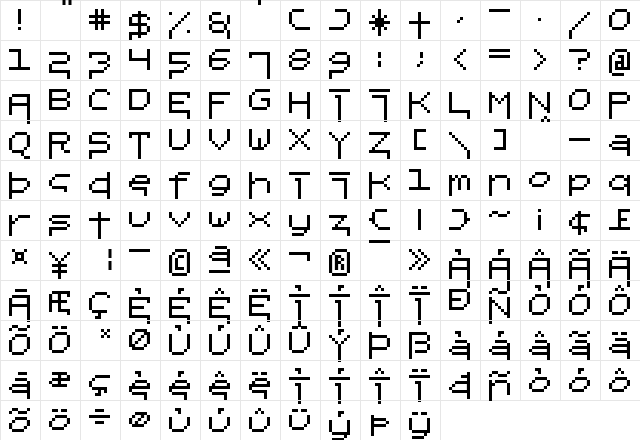
fixed_v05 Regular
Design Context for fixed_v05 Typeface
fixed_v05 is a composed and adaptable typeface that performs quietly and consistently across a wide range of design contexts.